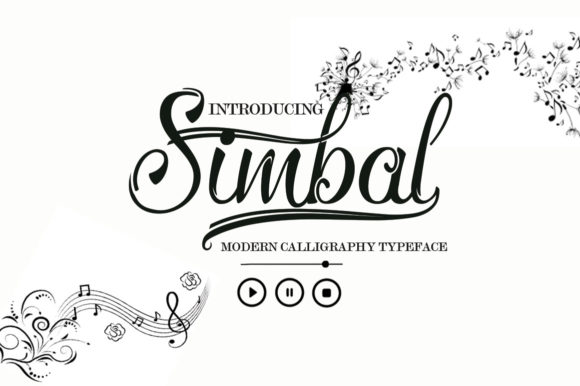
Simbal Font
About Simbal Font
Simbal is a fresh calligraphy font. It is suitable for greeting cards, branding materials, business cards, quotes, posters, and more!